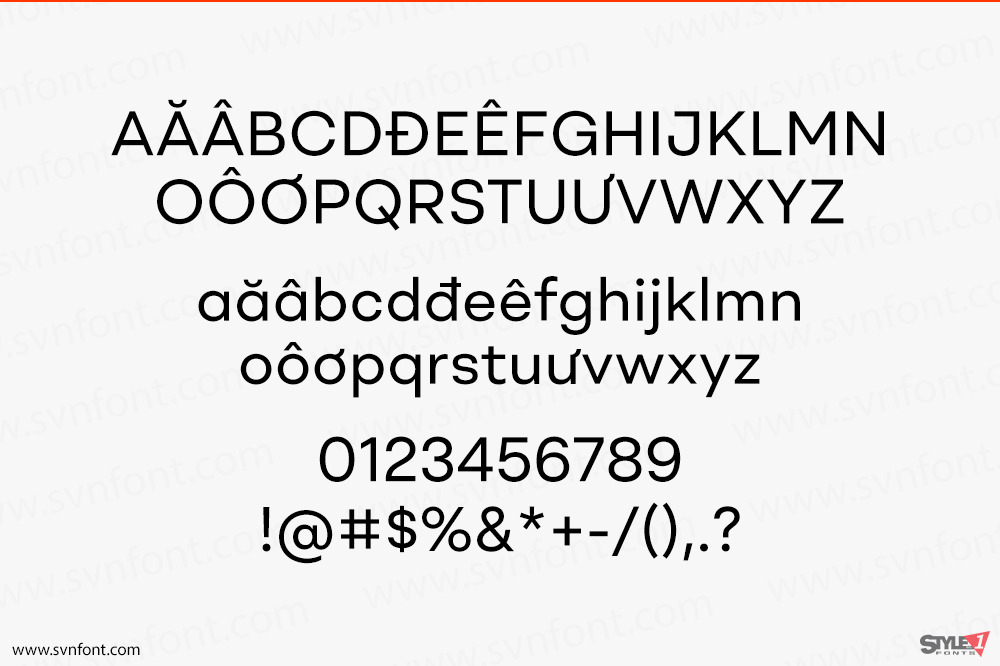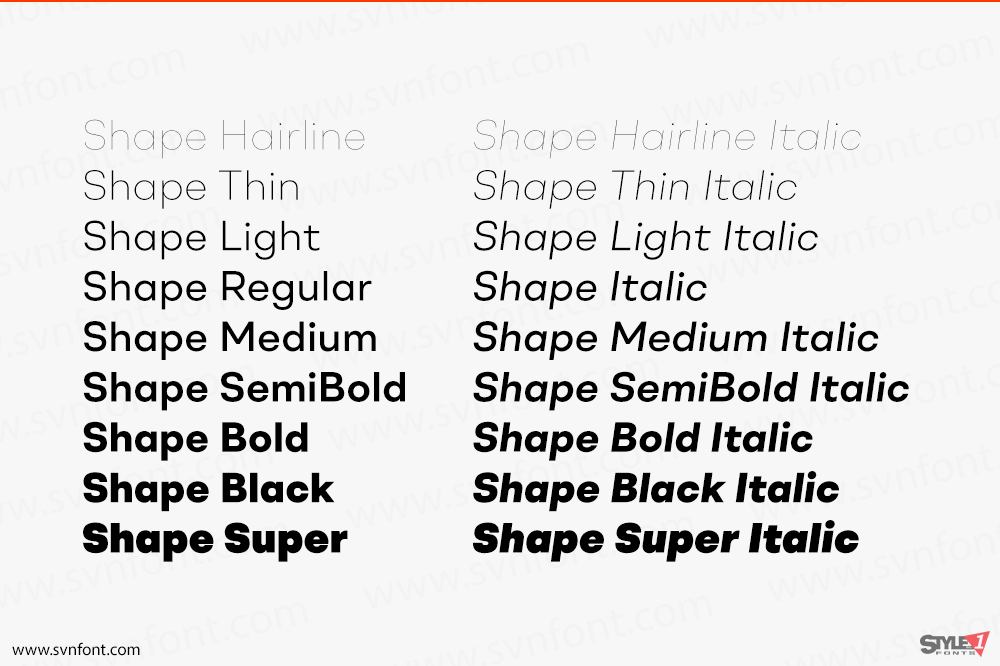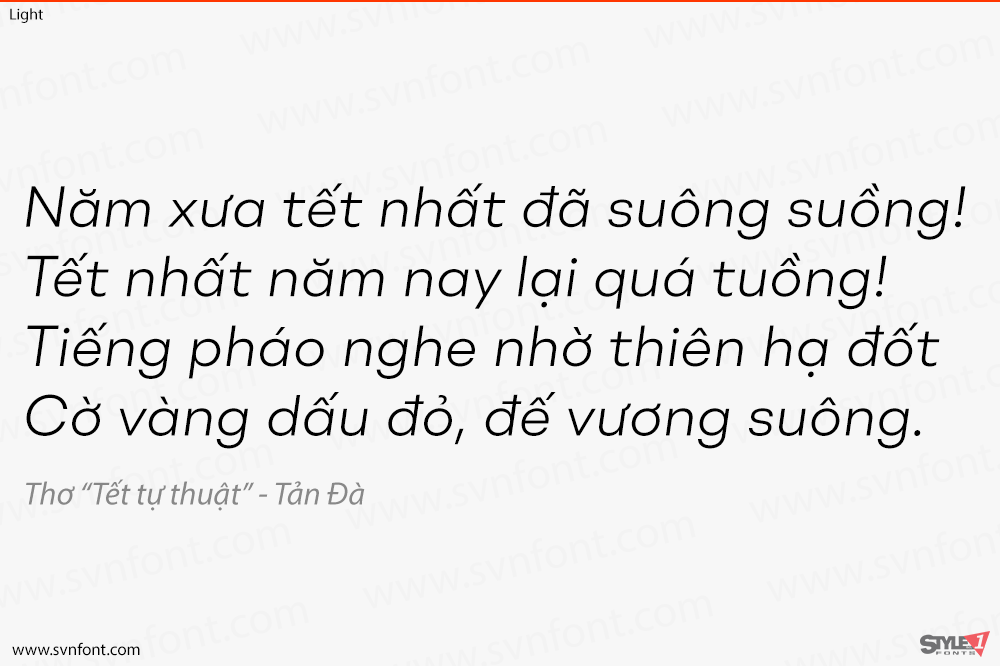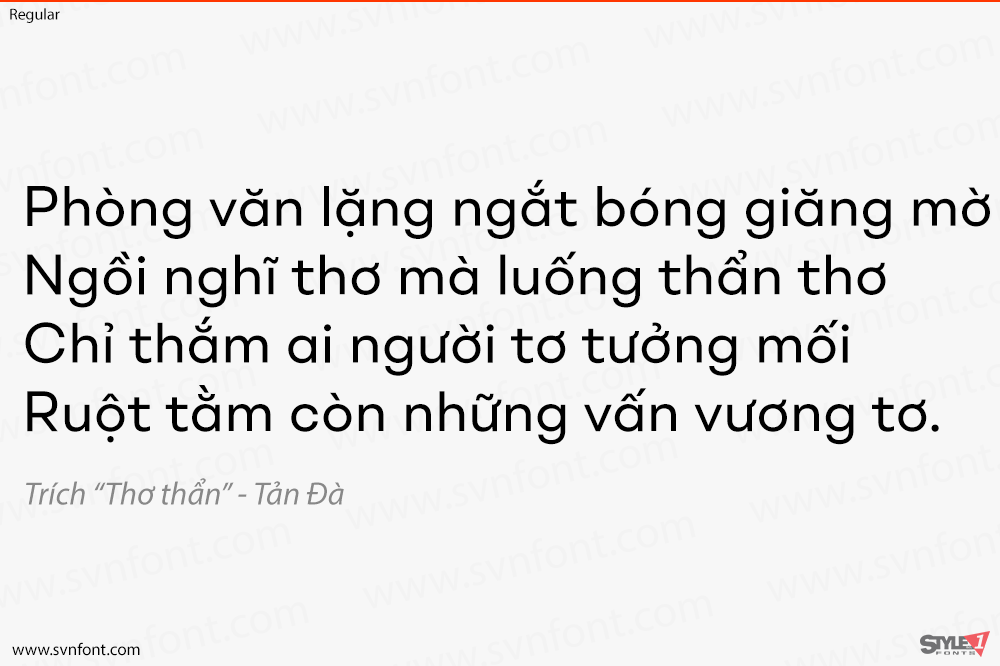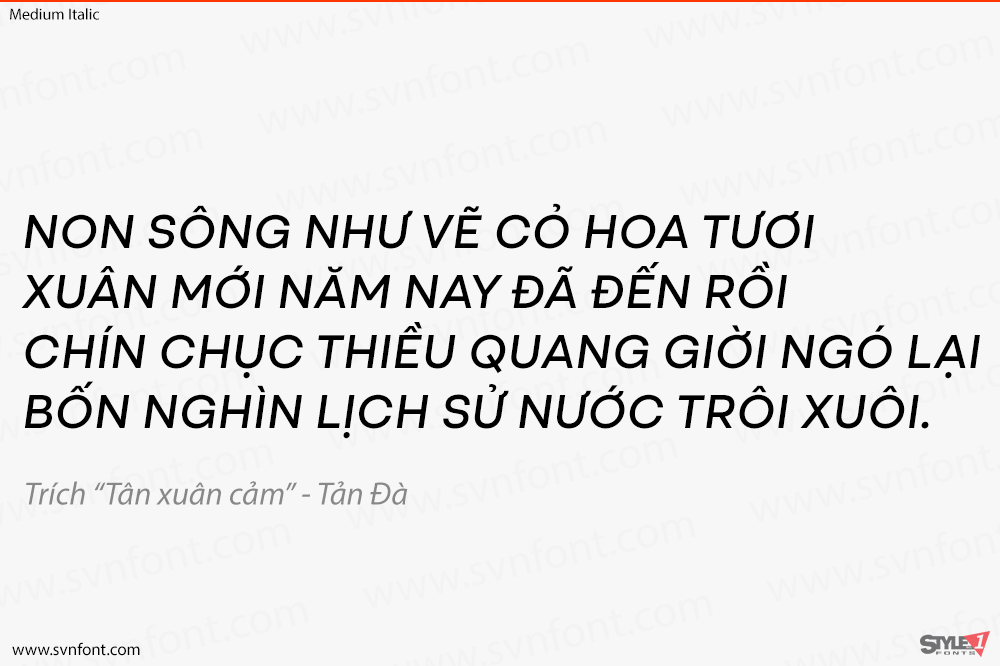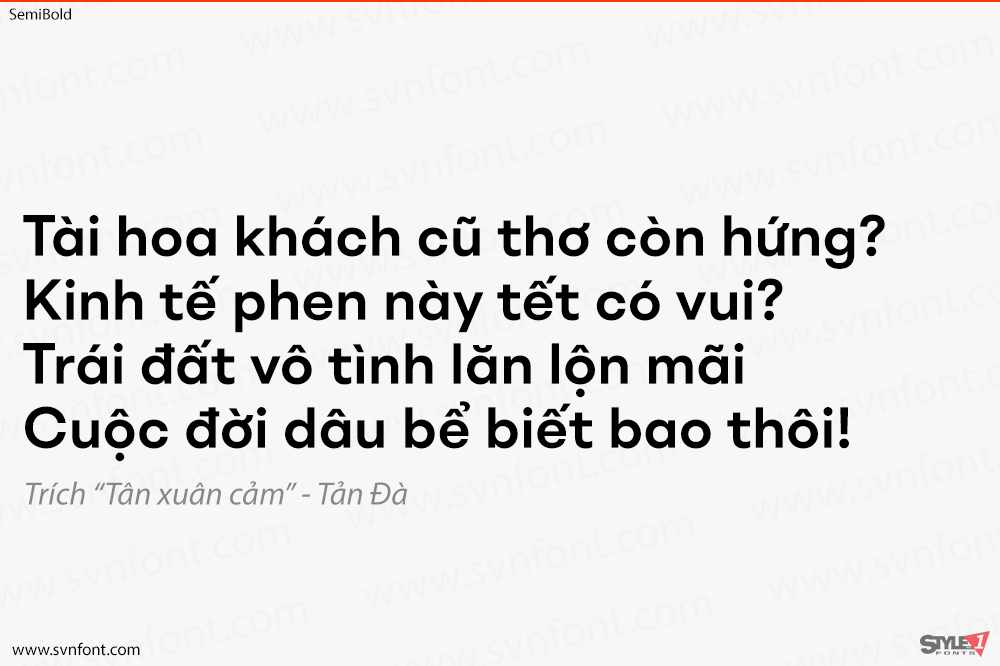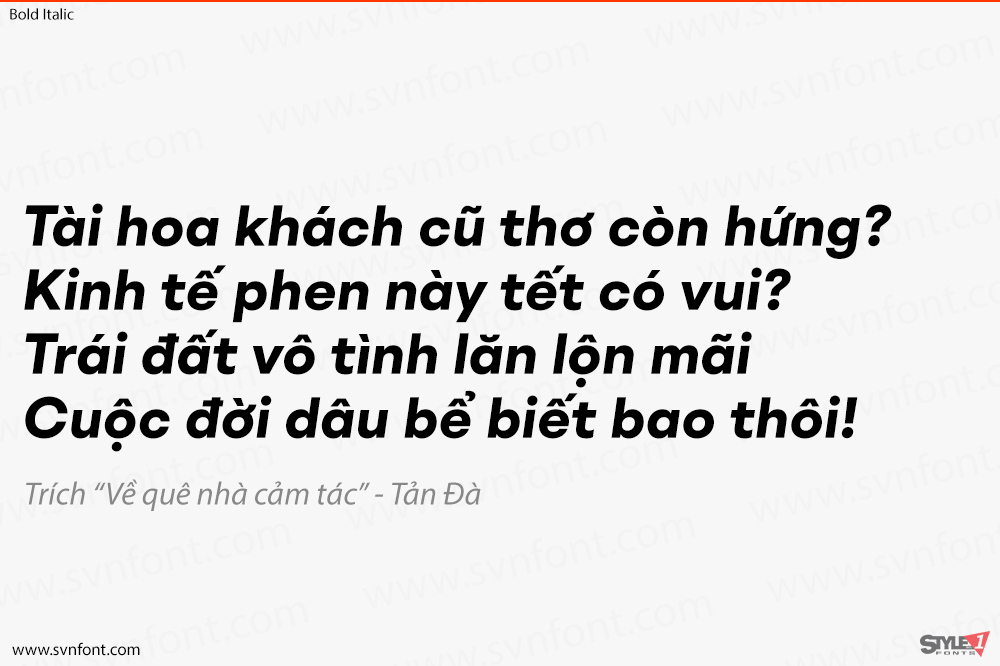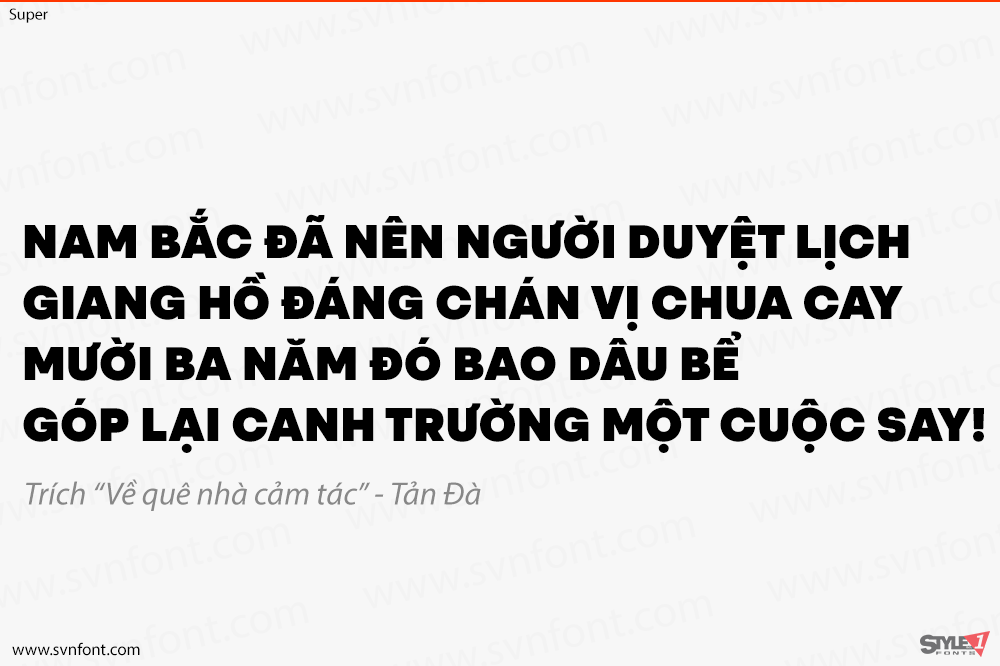
[Việt hóa] SVN-Shape (18 fonts)
A contemporary geometric type family in 18 styles. Built with precision, simplicity and a subtle warmth. Flexibility is the founding principle around which BR Shape was designed. The family is open, accessible and puts content first. Perfect for displaying text with complete clarity and purity.
BR Shape is available in 18 finely crafted styles, with nine weights ranging from Hairline to Super. The fonts also provide advanced typographic support with OpenType features such as case sensitive forms, icons, stylistic alternates and multiple figure sets. Also containing advanced language support as standard.
Nhà thiết kế: Christoph York
Nhà phát hành: Brink